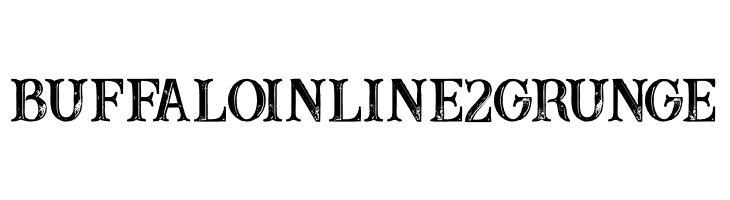
A bold, distressed serif font with a grunge texture.
A bold, brush-style font with dynamic, irregular strokes.
An elegant, italic script font with a calligraphic style.
A smooth, flowing italic font with a playful and elegant style.
A bold, geometric hollow font with angular, edgy outlines.
A bold, italic font with a dynamic and modern style.
A bold, geometric, and condensed font with a modern, industrial style.
A bold, futuristic font with sharp angles and a dynamic slant.
A whimsical and playful font with elongated ascenders and descenders.
Bold, wide, and italic with a modern, dynamic style.